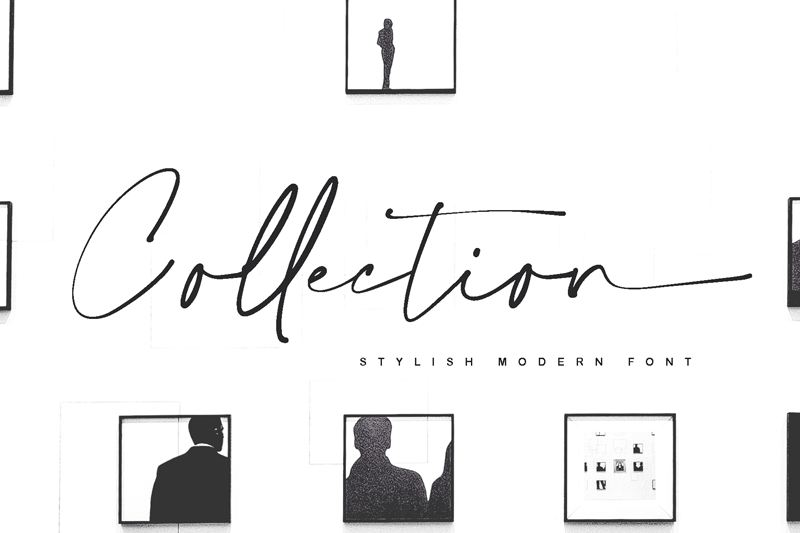
Collection - Free Handwritten Script Font
Take a look at this miraculous free handwritten script font called Collection. AlphArt has created this amazing and beautiful typeface. Amaze your fellow designers and create stunning designs with this fancy font.